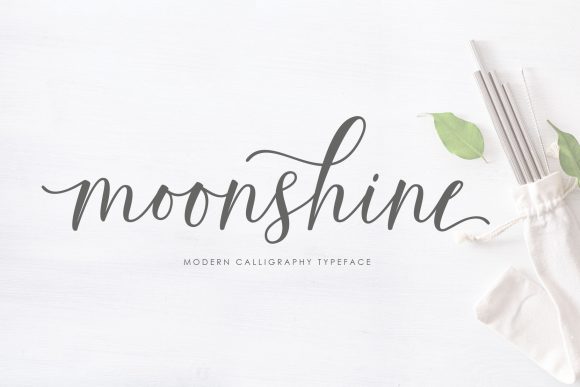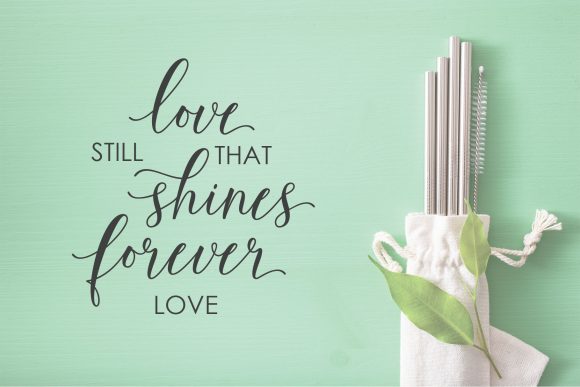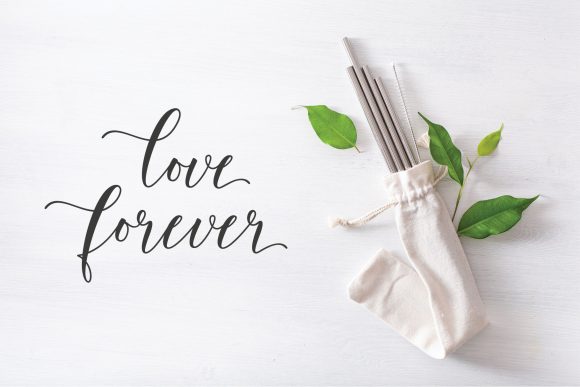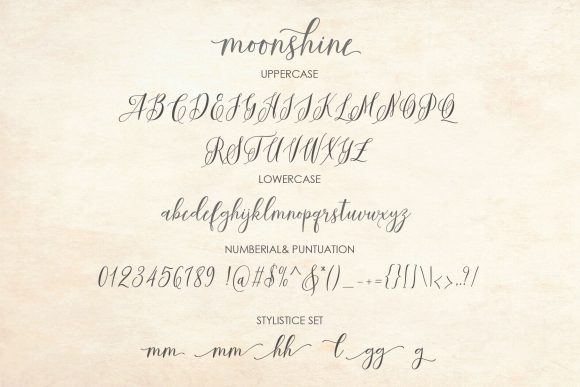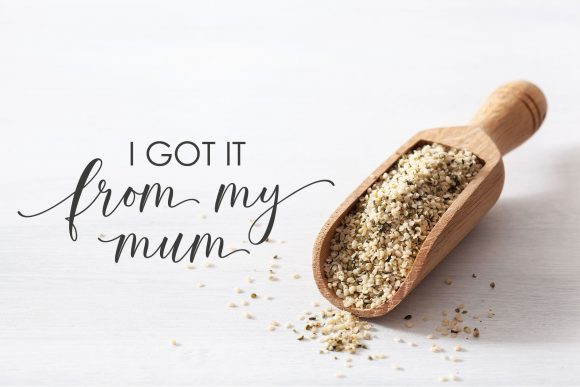
Moonshine Font
About Moonshine Font
Moonshine is a beautiful light handwritten font with a unique feel and a stunning impact. It will add a luxury spark to any design project that you wish to create! This font is PUA encoded which means you can access all glyphs and swashes with ease!